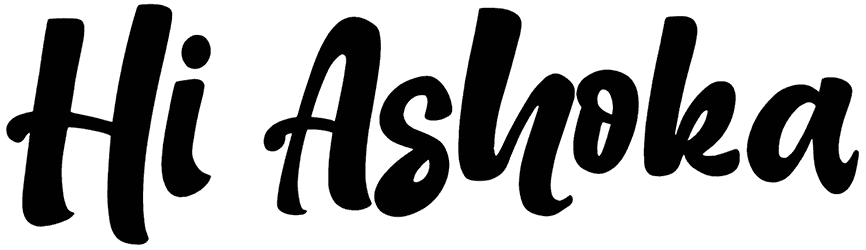
Hi Ashoka Font
Need a lovely touch to spark the interest of your audience and heighten your context at once? Well, Hi Ashoka does all of that. As a script font, with two styles, it treats like a versatile host to help you blossom in the flashes of designing contents.
Designed by: Asd Studio